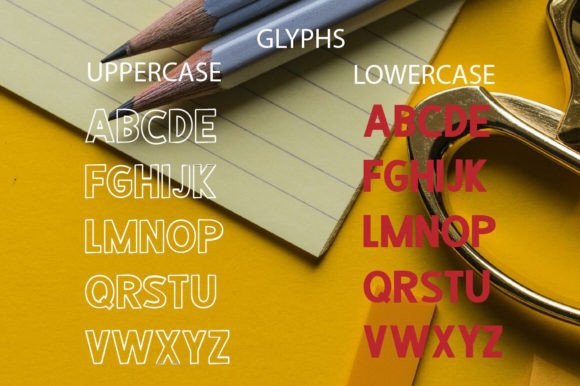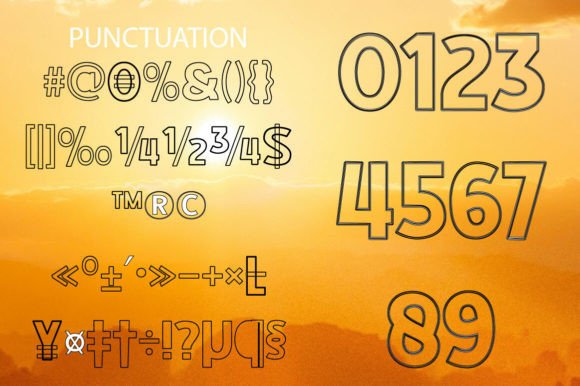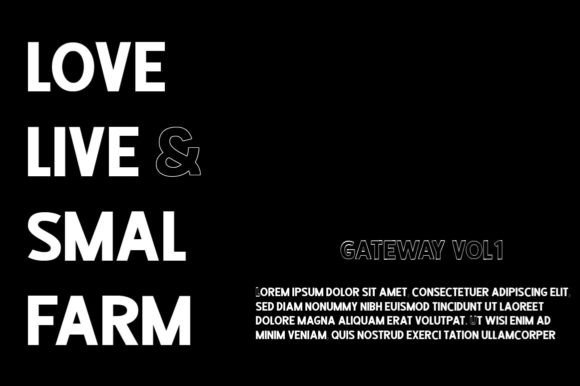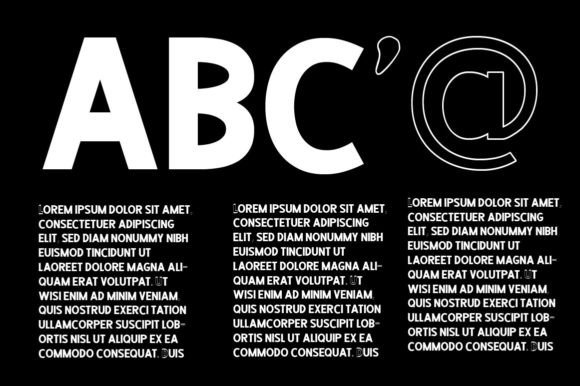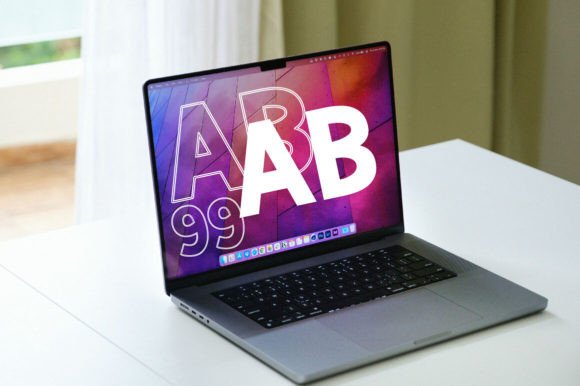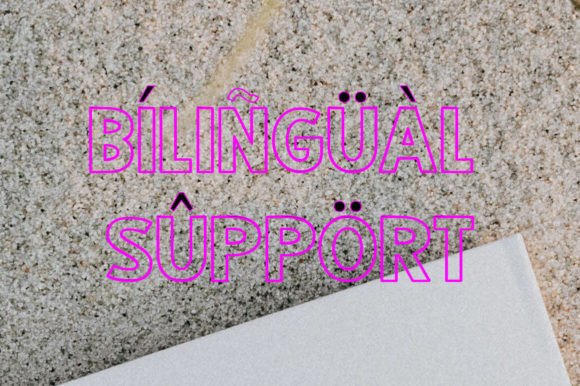
Introducing Gateway: The Epitome of Elegance and Uniqueness in Typography
In the vast and ever-evolving realm of typography, certain fonts manage to capture the essence of elegance and uniqueness, setting them apart from the rest. Gateway, a typeface font of enigmatic charm, is one such remarkable creation that epitomizes sophistication and artistry. Its distinct character set promises an extraordinary blend of craftsmanship and creativity, making it an ideal choice for design enthusiasts looking to elevate their design aesthetics.
The Distinct Persona of Gateway
Gateway exudes a precise yet playful persona, making it a standout choice for those seeking to add an element of sophistication and originality to their projects. This typeface font is not just about aesthetics; it’s about creating a connection and conveying a message with style and finesse. Whether you’re working on a branding project, a website design, or crafting a compelling narrative through print media, Gateway’s versatile personality adapts and shines in any given context, ensuring your creativity is never curbed.
Balancing Tradition with Modernity
One of the most striking features of Gateway is its ability to balance traditional design fundamentals with a modern twist. This balance is not easy to achieve, as it requires a deep understanding of typographic history, design principles, and current trends. Gateway’s creators have successfully merged the timeless elegance of classic typefaces with contemporary design elements, resulting in a font that feels both familiar and refreshingly new.
Elevate Your Design Aesthetics
For designers and crafters, the quest for the perfect font is a continuous journey. Gateway offers a unique solution, providing a reliable partner in the journey of visually compelling storytelling. Its versatility means it can be used across a wide range of projects, from luxury branding to editorial design, and from digital interfaces to packaging. Gateway’s distinctive character set ensures that your work stands out, offering a fresh alternative to more commonly used typefaces.
The Artistry of Gateway
Gateway is more than just a typeface; it’s a form of artistry. Each letterform is crafted with meticulous attention to detail, ensuring a harmonious flow that enhances readability and aesthetic appeal. The font’s design pays homage to the rich history of typography while pushing the boundaries of modern design. This blend of art and functionality makes Gateway a valuable addition to any designer’s toolkit.
Why Choose Gateway?
- Elegance and Uniqueness: Gateway offers a distinctive charm that sets it apart from more conventional typefaces.
- Versatility: Its adaptable nature makes it suitable for a wide range of design projects.
- Sophistication: Gateway adds an element of sophistication and originality to any design.
- Balanced Design: It successfully merges traditional design elements with a modern aesthetic.
Gateway is a remarkable addition to the world of typography, offering designers and crafters a unique tool to enhance their creative projects. Its blend of elegance, uniqueness, and versatility makes it an invaluable resource for those looking to leave a lasting impression. As a font that refuses to be ordinary, Gateway is a gift to the realm of typography, promising to elevate design aesthetics and inspire creativity. Discover the magic of Gateway and unlock new possibilities in your design journey.